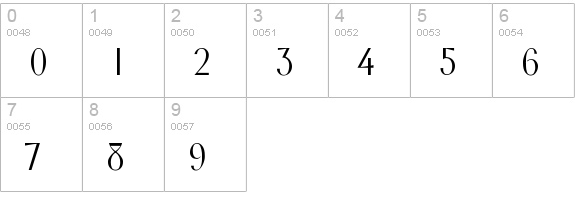
Middleton Font Details
Middleton font is a visually pleasing typeface that exudes elegance and sophistication. Its sleek and modern design makes it perfect for a wide range of design projects, from branding to editorial designs. The Middleton font boasts a unique blend of classic and contemporary elements, making it a versatile choice for both print and digital applications. What sets Middleton font apart is not only its stylish aesthetic, but also the fact that it is completely free to download. Yes, you read that right - Middleton font is freely available at FontsMarket.com, allowing designers and creatives to access this high-quality font without any cost. With its clean lines and refined details, Middleton font is sure to elevate any project it is used in. Don't miss out on the opportunity to add this stunning font to your collection - download Middleton font today at FontsMarket.com and take your designs to the next level.